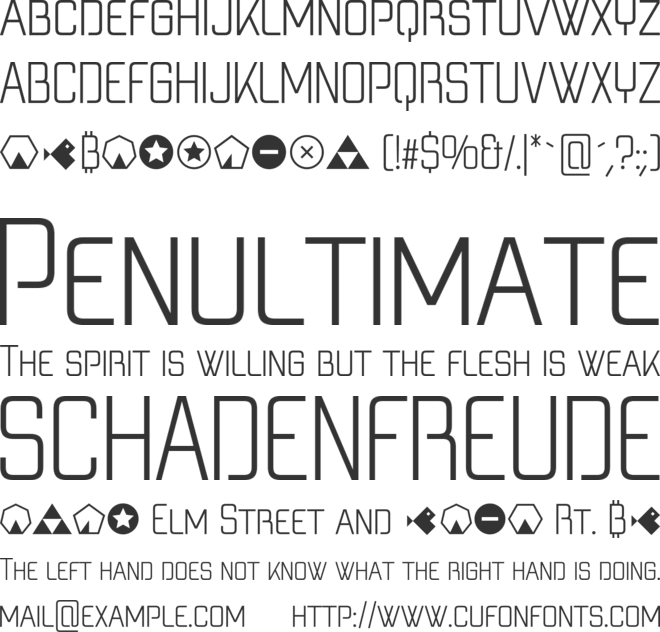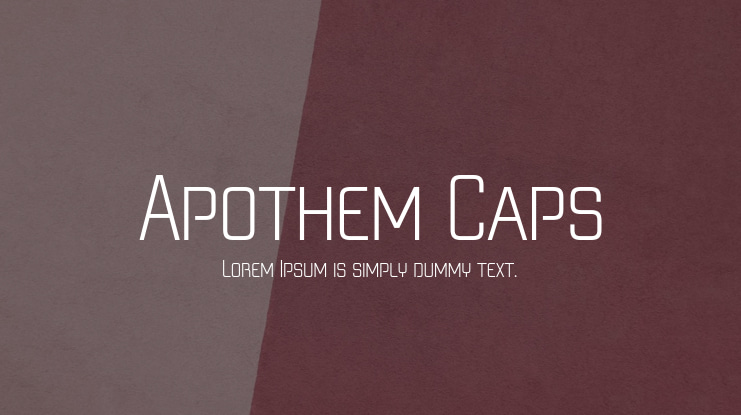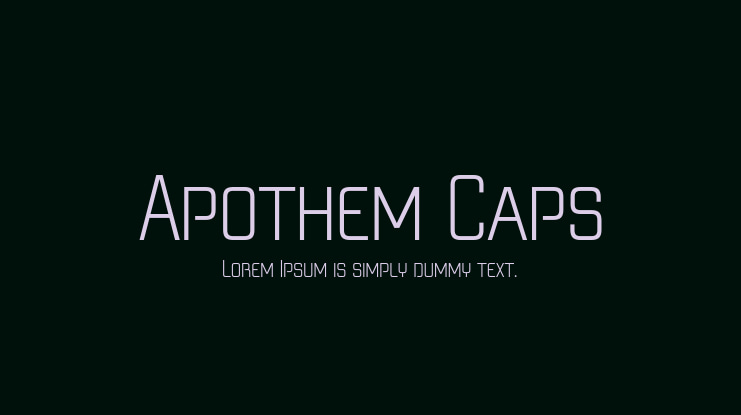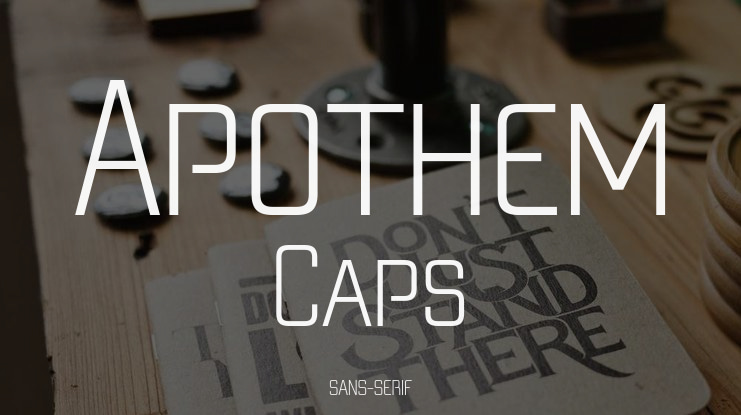
Apothem Caps Font Family
Creating Apothem Caps was no simple endeavor; it demanded a meticulous process requiring patience and an unwavering passion for type design. The result is a futuristic geometric typeface with condensed proportions, characterized by exceptional legibility and intrinsic elegance.
Apothem Caps is available in four carefully crafted weights: Light, Regular, Medium, and Bold. This range provides designers with unique flexibility to cater to diverse needs.
A notable enhancement in the new Apothem small caps version is the inclusion of three sets of drop caps: Caps, Small Caps, and Petite Caps, which significantly broaden its potential applications.